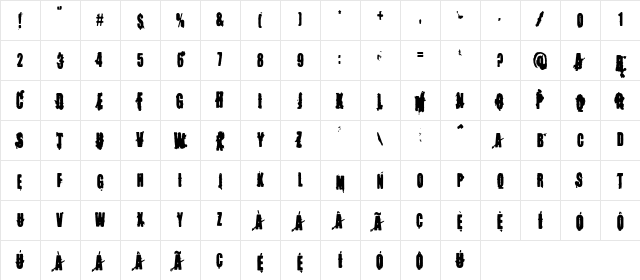
Memory Lapses Memory Lapse Free Font
Memory Lapses Memory Lapse
Style: Memory Lapse
Version: 1.0 Dirty and kindda Clean
Design Context for Memory Lapses
Memory Lapses is a composed and adaptable typeface that performs quietly and consistently across a wide range of design contexts.